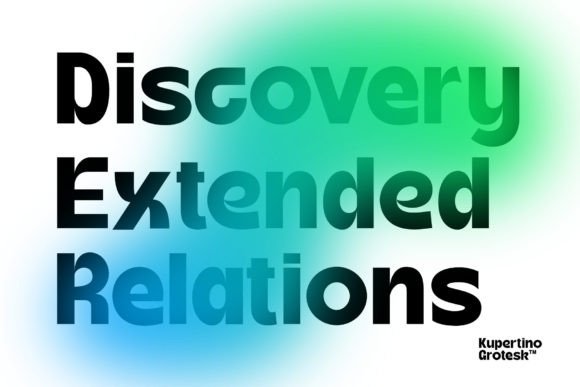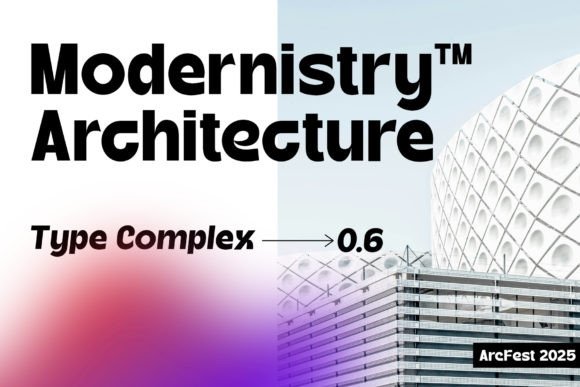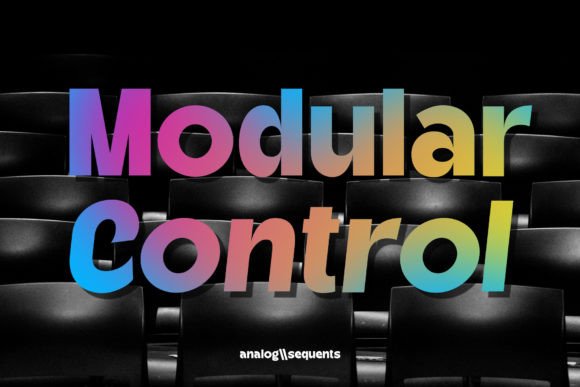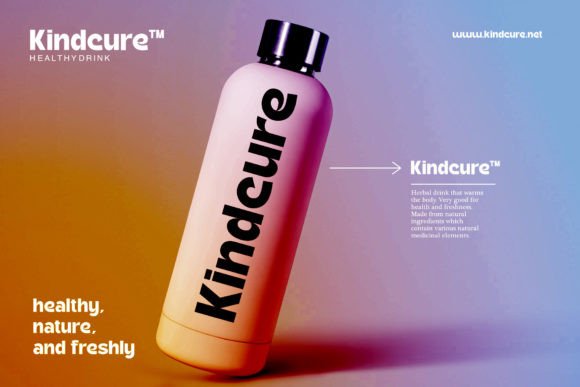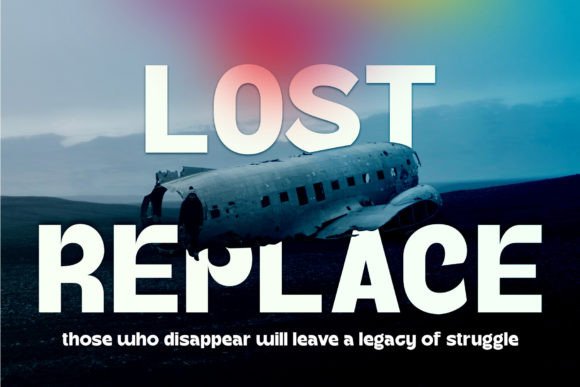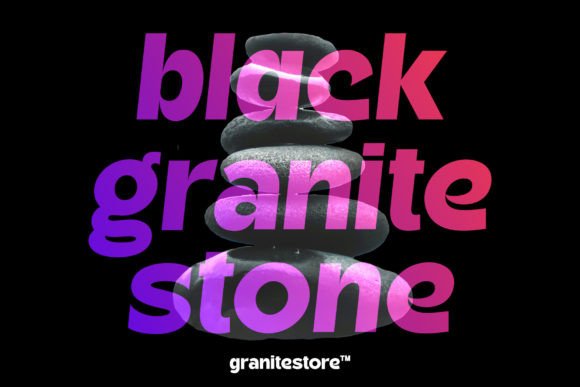
Introduction to Kupertino Grotesk Font
Remember that moment when you’re working on a design project, and the perfect font is just out of reach? The words on the page feel dull, and you know a high-quality font could make all the difference. That’s exactly what happens when you discover a font that truly elevates your design. Introducing Kupertino Grotesk Font, a modern sans serif font designed for clarity and impact.
This font is more than just a design resource – it’s a valuable tool for designers who want to create visually striking work. With its clean lines and transparent background, Kupertino Grotesk Font is perfect for any creative project. Whether you’re working on a business card, brochure, or website, this font is sure to make your design stand out. And the best part? It’s available for a free download, making it an essential addition to your design arsenal.
As a designer, you know how crucial the right font can be. With Kupertino Grotesk Font, you’ll have the flexibility to choose between two distinct styles – regular and oblique – to suit your design needs. This font is a game-changer, and we can’t wait for you to experience its impact for yourself.
Key Features of Cupertino Grotesk Font
- High-quality sans-serif font with a modern and clean design, ideal for creative projects and design resources.
- Transparent background, making it easy to use with any background image or color.
- Includes a range of weights, from Light to Bold, allowing for flexibility in font size and emphasis.
- Designed to be highly legible, even at small font sizes, making it perfect for digital products and user interfaces.
- Comes in a range of sizes, including 18, 24, 36, and 48 point, allowing for precise control over font size and resolution.
Honest Review: Kupertino Grotesk Font
I recently had the opportunity to work with the Kupertino Grotesk Font, and I must say, it’s been a game-changer for my design projects. ✨ This font has a high quality feel to it, with clean lines and a modern aesthetic that makes it perfect for creative projects. Whether I’m working on a logo, brochure, or website, this font is always a great choice.
One of the things I love about the Kupertino Grotesk Font is its transparency. The transparent background option allows me to easily integrate it into my designs, without worrying about complicated background settings. This feature alone has saved me so much time and effort in my design process.
- High quality design
- May not be suitable for formal or traditional designs
- Limited font weights and styles available
Overall, I’m extremely impressed with the Kupertino Grotesk Font. It’s a fantastic addition to my design resources, and I highly recommend it to anyone looking for a high-quality, free font for their creative project. ⚠️ Just be aware of the limitations mentioned above, and you’ll be all set for success.
How to Use Kupertino Grotesk Font
The Cupertino Grotesk Font is a high-quality, versatile design resource that can elevate your creative project. With its sleek and modern aesthetic, this font is perfect for a variety of applications.
To get the most out of the Cupertino Grotesk Font, use it on a transparent background to create a clean and minimalist look. Experiment with different font sizes and colors to find the perfect combination for your design.
The Cupertino Grotesk Font is commonly used in creative projects such as branding, logos, and typography-based designs. Its modern aesthetic makes it perfect for a range of industries, from tech to fashion.